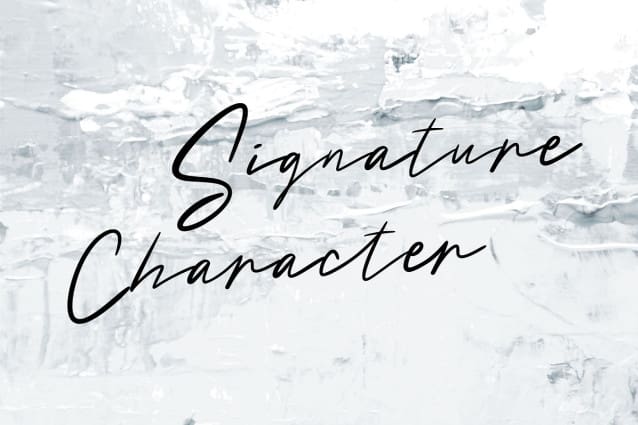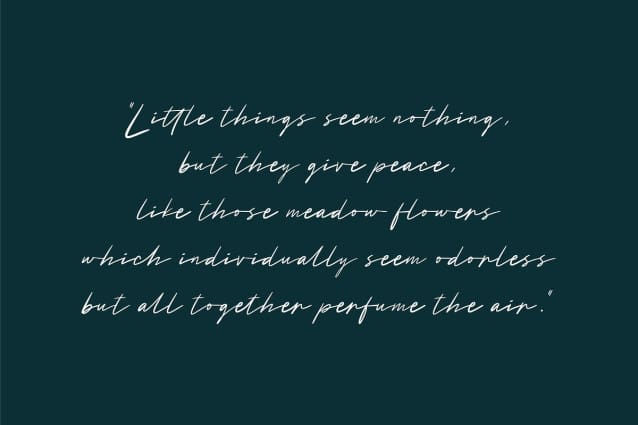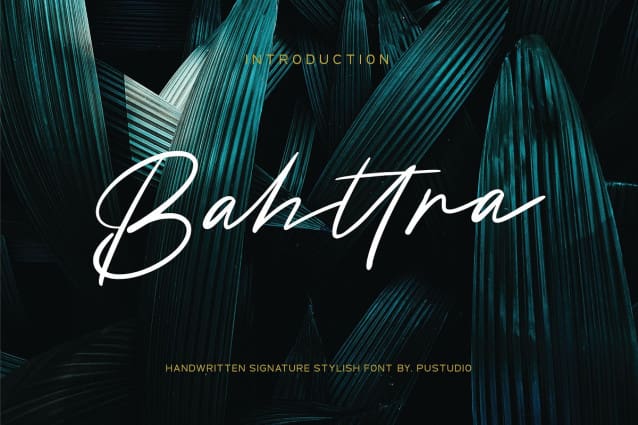
Bahttra Signature Font
Bahttra Signature Font is a beautiful signature script font that features charming and elegant handwritten characters. Add this font to your most creative ideas, and watch how it makes them stand out!